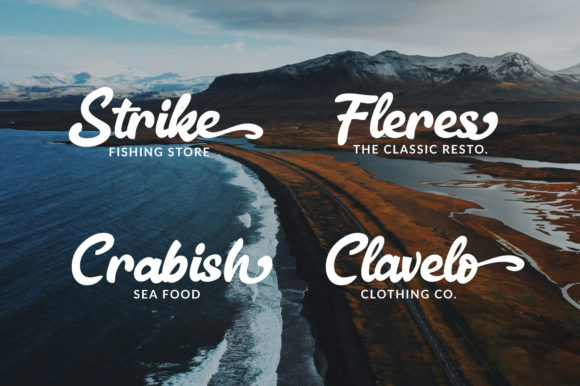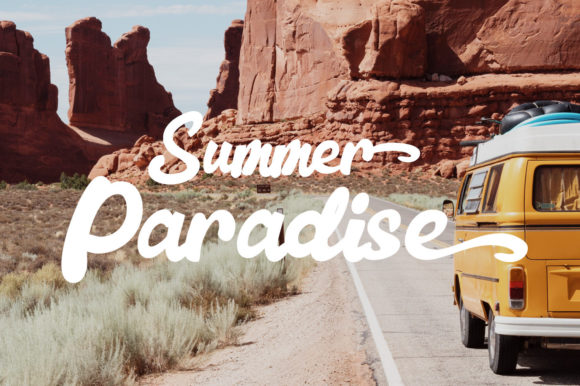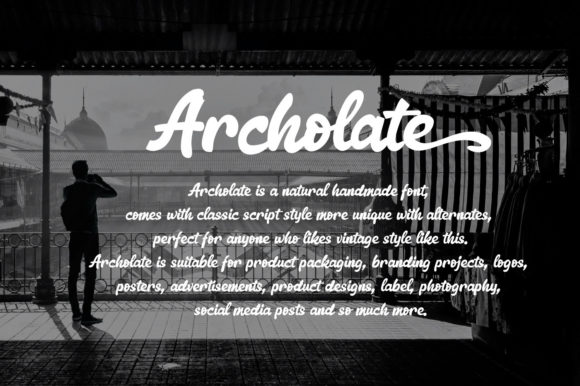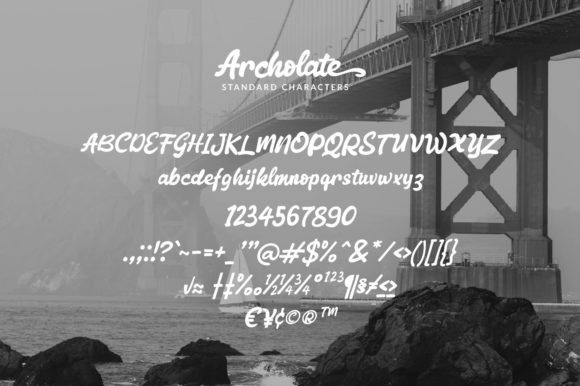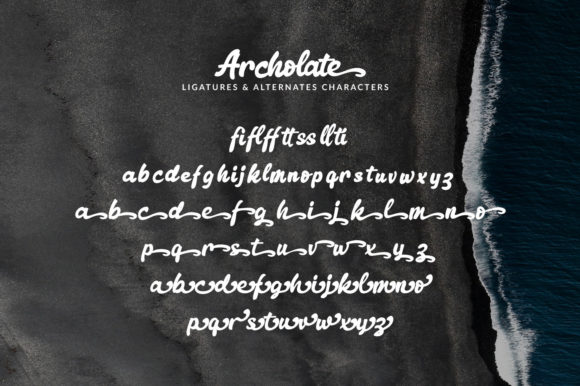
About Archolate Script Font
Archolate Script is a flowing and delicate handwritten font that embodies charm and elegance in every character. Use it for projects that need lovely, romantic typography! This font is PUA encoded, which means you can access all of the glyphs and swashes with ease!